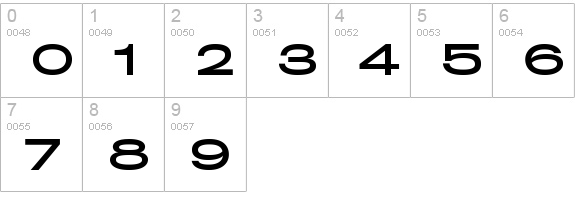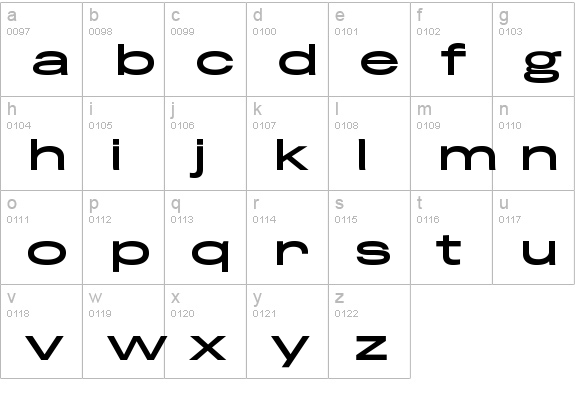
Rhode-MediumExtended Font Details
Rhode-MediumExtended is a versatile and elegant font that adds a touch of sophistication to any design project. Its clean lines and modern aesthetics make it perfect for a wide range of applications, from branding and advertising to editorial design and packaging. This font features a medium weight, which strikes the perfect balance between boldness and subtlety. The extended proportions provide ample space for each letter to breathe, resulting in a harmonious overall look. The carefully crafted curves and sharp angles give Rhode-MediumExtended a distinct personality that is both timeless and contemporary. One of the most remarkable aspects of Rhode-MediumExtended is that it is available for free. Yes, you heard it right! This stunning font can be downloaded without any charge at FontsMarket.com. This means that you can enhance your designs with this exceptional typeface without breaking the bank. Whether you are a professional designer or a creative enthusiast, Rhode-MediumExtended offers a wealth of possibilities. Its versatility allows it to seamlessly integrate into various design aesthetics, adding a touch of elegance and refinement. From headlines and titles to body text and captions, this font will elevate your project to new heights. Don't miss out on the opportunity to enhance your design work with Rhode-MediumExtended. Download it for free today at FontsMarket.com and let your creativity soar.